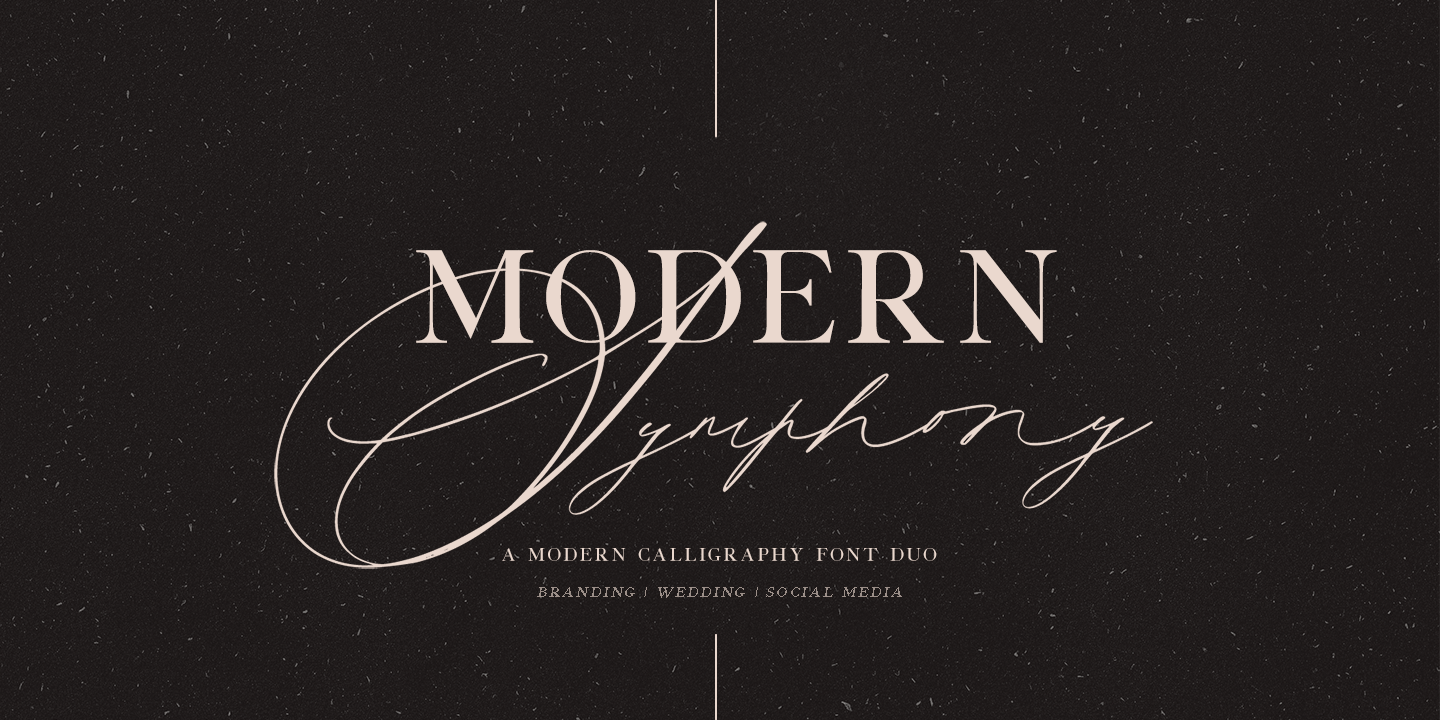
The Modern Symphony Font Free Download is ideal for wedding invitations, feminine branding, cards, and social media graphics, offering an elegant, luxurious aesthetic.
This font is exciting because its sophisticated script and high-contrast serif duo blend natural calligraphy with modern elegance, creating a refined, versatile look.
The Modern Symphony family includes Script and Serif styles, with the Script offering three sets of letters and ligatures for dynamic designs.
Transform your projects with the Modern Symphony Font Free Download, a trending font duo designed by Oksana Petrenko and published by Calamar. The Modern Symphony Script features three full sets of gorgeous uppercase and lowercase letters, numerals, punctuation, and extensive ligatures, perfect for recreating natural calligraphy in wedding invitations or logos. The Modern Symphony Serif, a classy high-contrast font, includes uppercase characters, numerals, and punctuation, ideal for elegant headlines or branding. Available in OTF, TTF, and WOFF formats, it supports multiple languages and ensures crisp rendering across print and digital platforms. As 2025 design trends favor luxurious, calligraphic typography, downloading Modern Symphony Font Free Download keeps your work stylish and sophisticated. Test it today at myfonts.com to explore its potential, and consider purchasing for commercial use to fully leverage its elegant style.